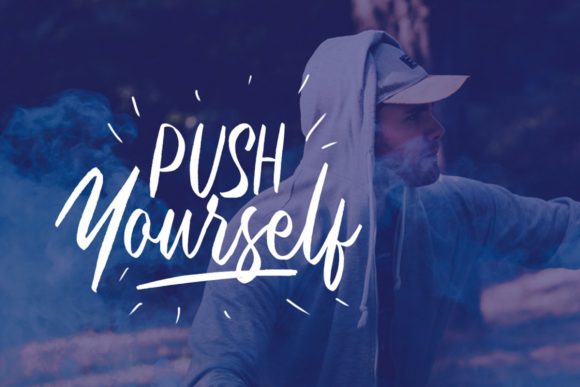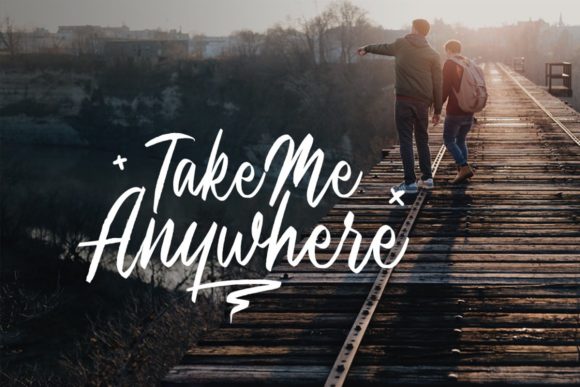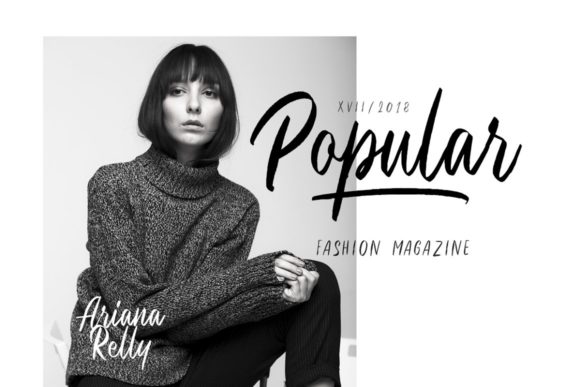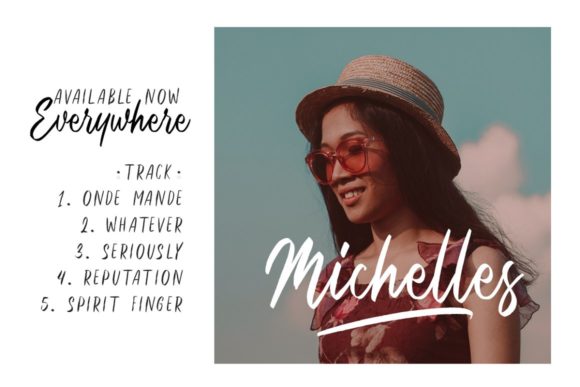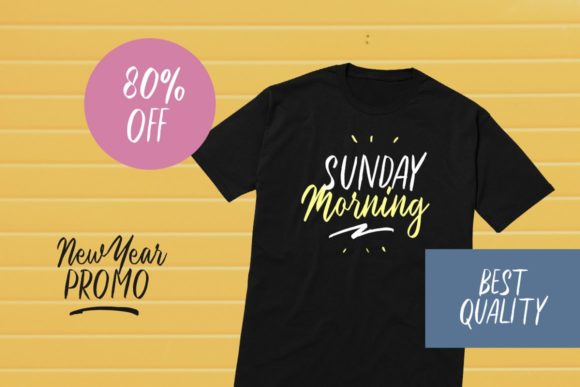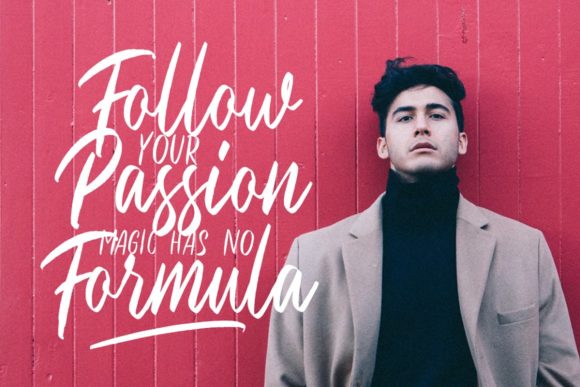
Discover the Elegance of Black Hymned Font: Elevate Your Designs with this Stunning Handwritten Style
In the world of typography, fonts play a crucial role in bringing creativity and personality to designs. For crafters, designers, and DIY enthusiasts, finding the perfect font can make all the difference in transforming a project from ordinary to extraordinary. This is where the Black Hymned Font comes into play – a beautiful, stylish, and trendy handwritten font that is sure to captivate your audience.
What is Black Hymned Font?
Black Hymned is a gorgeous handwritten font, carefully crafted to add a touch of elegance and sophistication to various design projects. Its unique, flowing script and beautiful letterforms make it an ideal choice for a wide range of creative endeavors, from letterheads and titles to stationery and more.
Key Features of Black Hymned Font
- Handwritten Style: Black Hymned boasts a natural, handwritten look that exudes warmth and personality.
- Trendy and Modern: This font is perfect for those who want to add a touch of modernity to their designs without sacrificing elegance.
- Versatile: Black Hymned can be used for a variety of projects, including but not limited to, letterheads, titles, stationery, posters, and social media graphics.
- Easy to Read: Despite its stylish and cursive nature, Black Hymned remains highly legible, making it suitable for both headings and body text.
Who Can Benefit from Black Hymned Font?
Black Hymned Font is a versatile tool that can benefit a wide range of professionals and hobbyists, including:
- Graphic Designers: Looking for a stylish and modern font to elevate their designs.
- Crafters: Engaged in DIY projects, scrapbooking, or card making who want to add a personal touch.
- Stationery Designers: Creating custom stationery, journals, or planners.
- Social Media Influencers: Seeking unique fonts to make their social media posts stand out.
- Small Business Owners: Aiming to create a distinctive brand identity through their marketing materials.
How to Use Black Hymned Font Effectively
To make the most of Black Hymned Font, consider the following tips:
- Pair with Other Fonts: Combine Black Hymned with simpler fonts for body text to create visual hierarchy and interest.
- Use for Headings and Titles: Its stylish nature makes it perfect for headings, titles, and key messages.
- Experiment with Colors: While black is the standard color, experimenting with other colors can add different moods and effects to your designs.
- Consider Size and Weight: Play around with different sizes and weights (if available) to add emphasis and create a more dynamic design.
Black Hymned Font is a stunning addition to any designer’s toolkit. Its elegant, handwritten style combined with its versatility and readability makes it an excellent choice for a multitude of projects. Whether you’re a professional designer or a hobbyist looking to add a personal touch to your creations, Black Hymned is sure to inspire and elevate your designs. So, dive into the world of typography with Black Hymned Font and discover the endless possibilities it has to offer.